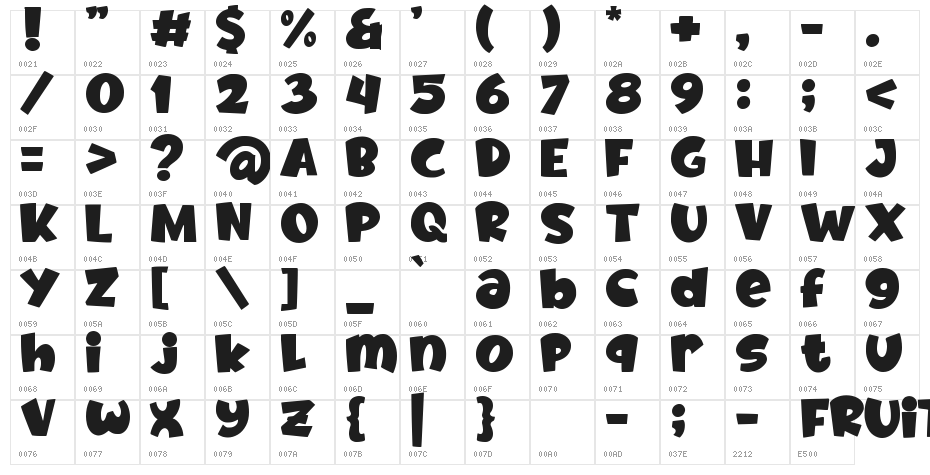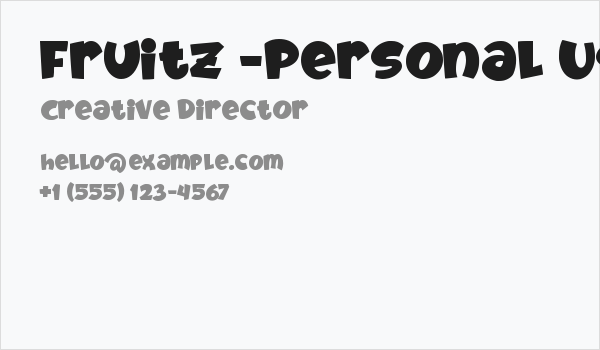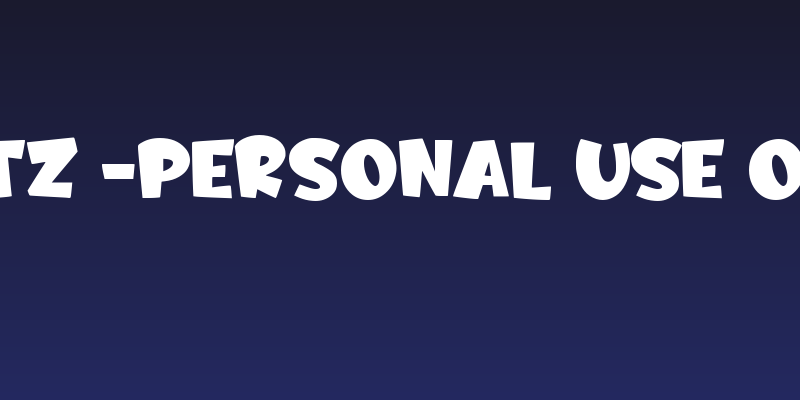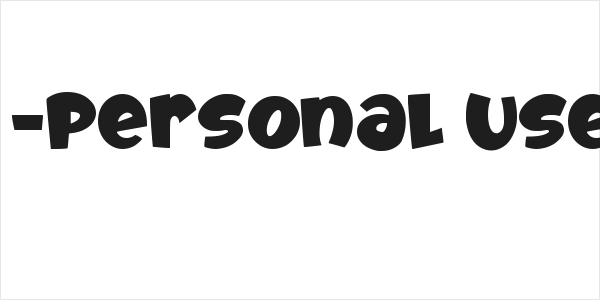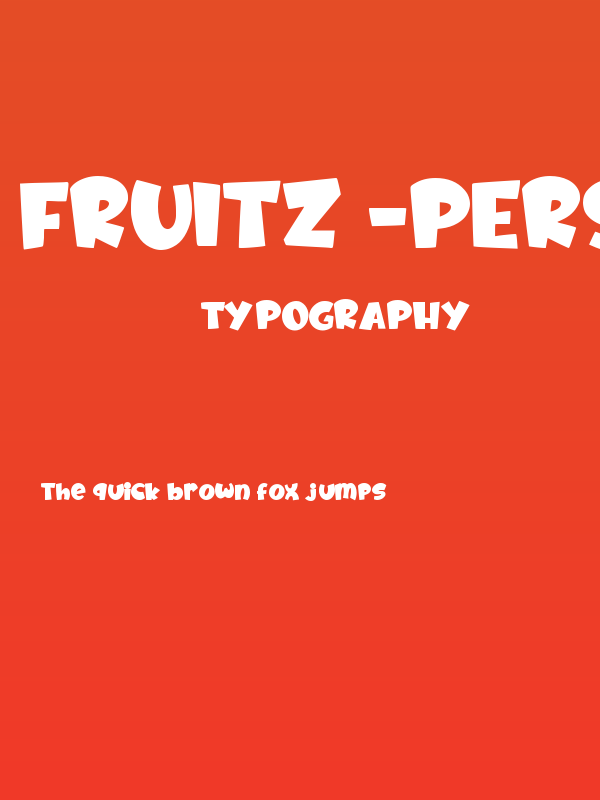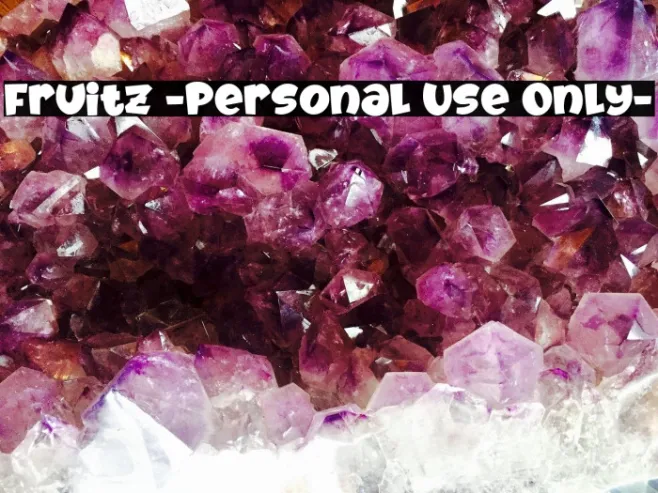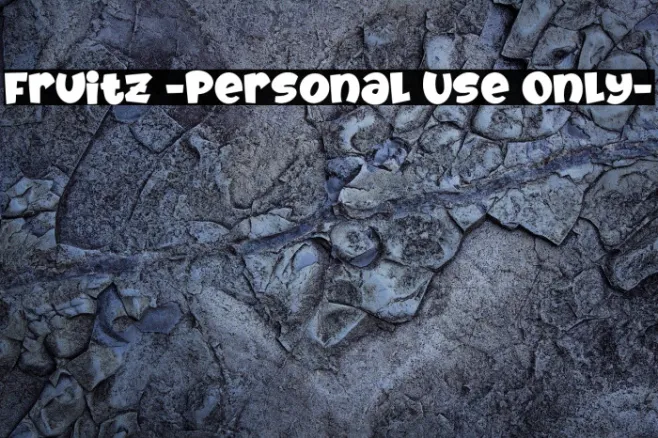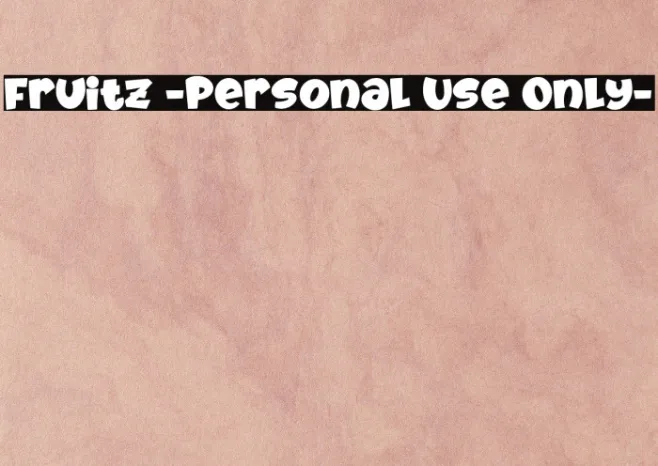
Fruitz -Personal Use Only- Font
Fruitz -Personal Use Only- Description
This playful and bold font features thick, rounded letters with a whimsical and cartoonish style. The characters are slightly irregular, giving them a hand-drawn appearance that adds to their charm. The uppercase and lowercase letters maintain a consistent weight, while the numbers and special characters are equally bold and expressive. The overall design is eye-catching and fun, making it suitable for projects that require a lively and energetic touch. The font's unique style is perfect for capturing attention and conveying a sense of joy and creativity.
| Overall Style | Playful, Cartoonish, Fun |
| Proposed Projects | Ideal for children's books, playful branding, party invitations, and comic-style graphics. |